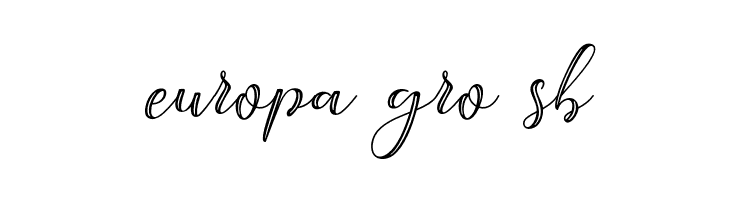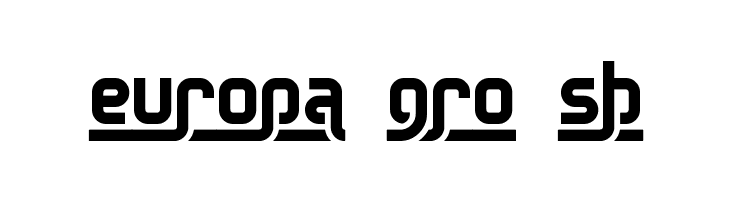
A modern, geometric font with a double-line outline style.
A bold, three-dimensional font with geometric, block-like letters and a retro feel.
A bold, geometric font with integrated underscores and a modern, tech-inspired style.
A bold, geometric font with integrated underscores and a modern aesthetic.
An elegant script font with flowing, cursive letters and intricate flourishes.
A sophisticated script font with elegant loops and swashes.
A playful, hand-drawn font with bold, outlined characters and a whimsical style.
A bold, playful font with decorative elements and a modern style.
A bold, geometric font with angular lines and modern design elements.
A rugged, distressed font with a bold, hand-drawn appearance.
A whimsical, handwritten-style font with a playful and elegant charm.
A bold, textured font with a distressed, wave-like appearance.
A bold, textured font with a distressed, vintage appearance.
A bold, blackletter-inspired font with a modern gothic style.
A bold, blocky font with rounded edges and uniform thickness.
A bold, outlined geometric font with a modern and playful style.
A vintage, typewriter-inspired font with a distressed, organic look.
A vintage, typewriter-inspired font with a textured, worn appearance.
A bold, serif font with characters enclosed in film strip frames, ideal for vintage or cinematic themes.
A bold, filmstrip-themed font with high contrast and decorative appeal.
A bold, textured font with jagged, organic edges.
A bold, dynamic brush-style font with energetic strokes and uneven edges.
A bold, brushstroke font with sharp, dynamic edges.
An artistic, elongated font with a modern-retro vibe.
A playful, distorted font with elongated, wavy characters.
A playful, hand-drawn font with tall, narrow characters and a whimsical style.
A whimsical, decorative font with tall, narrow letterforms and playful elements.
A whimsical and artistic font with elongated, curvy letterforms.